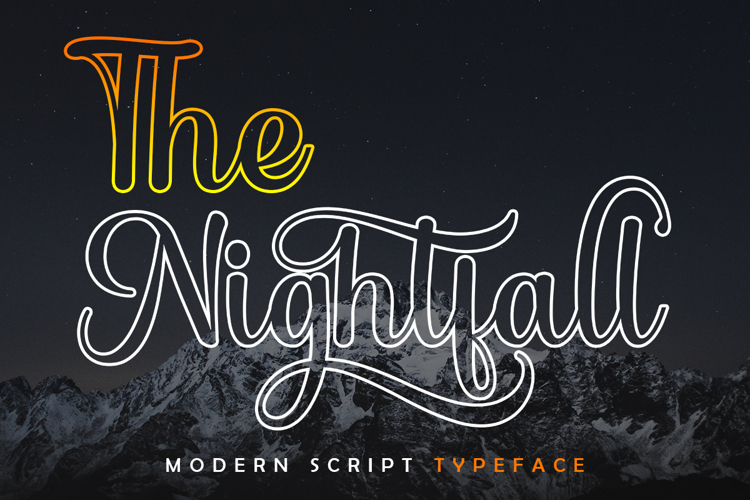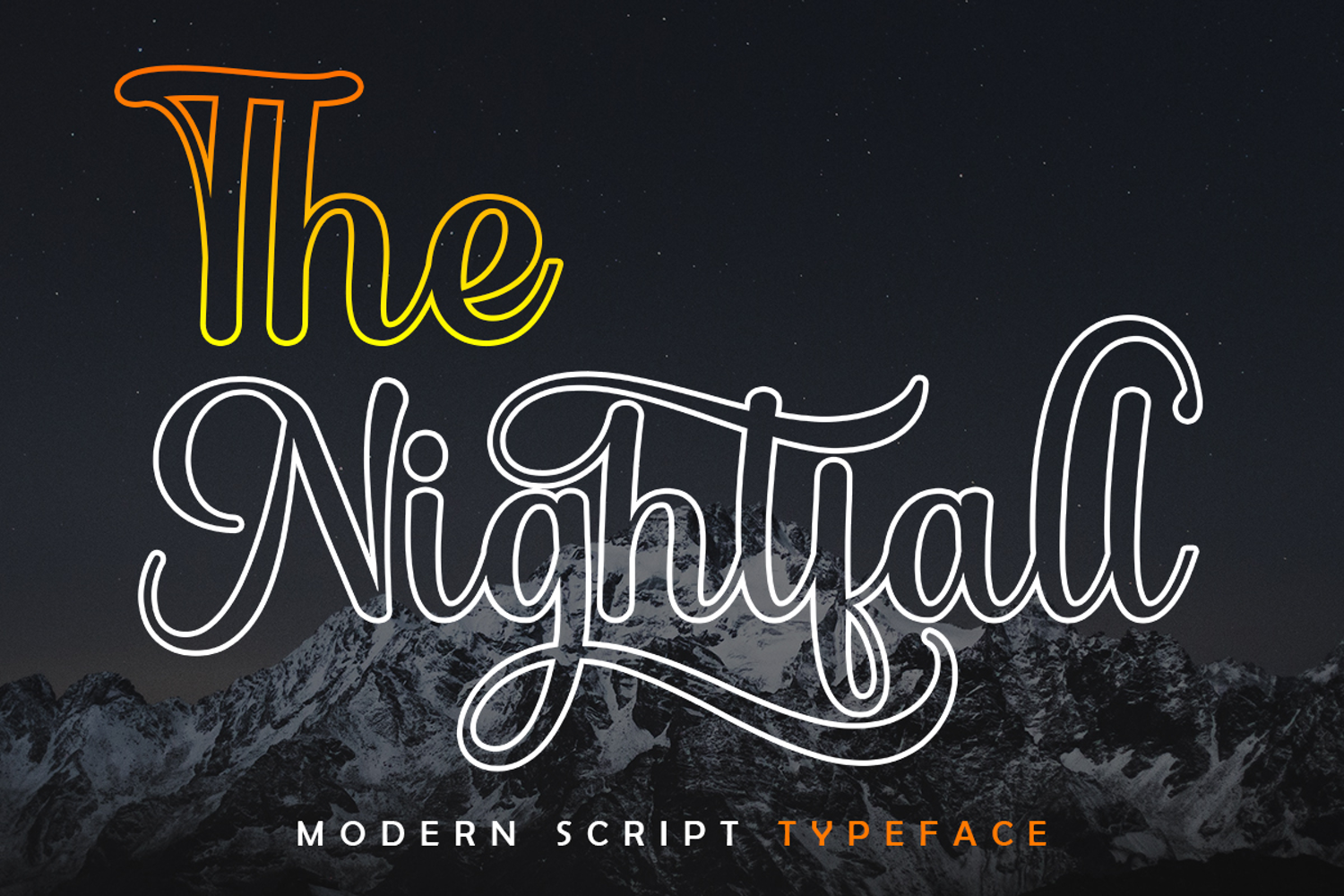
The Nightfall Outline is a romantic typefaces. bold, elegant & fun vintage script font. Can be used for various purposes. Bold
such as logos, wedding invitation, t-shirt, letterhead, signage, news, posters, badges etc.
The Nightfall features 300+ glyphs and 100+ alternate characters, ligatures, swash and multiple language support.